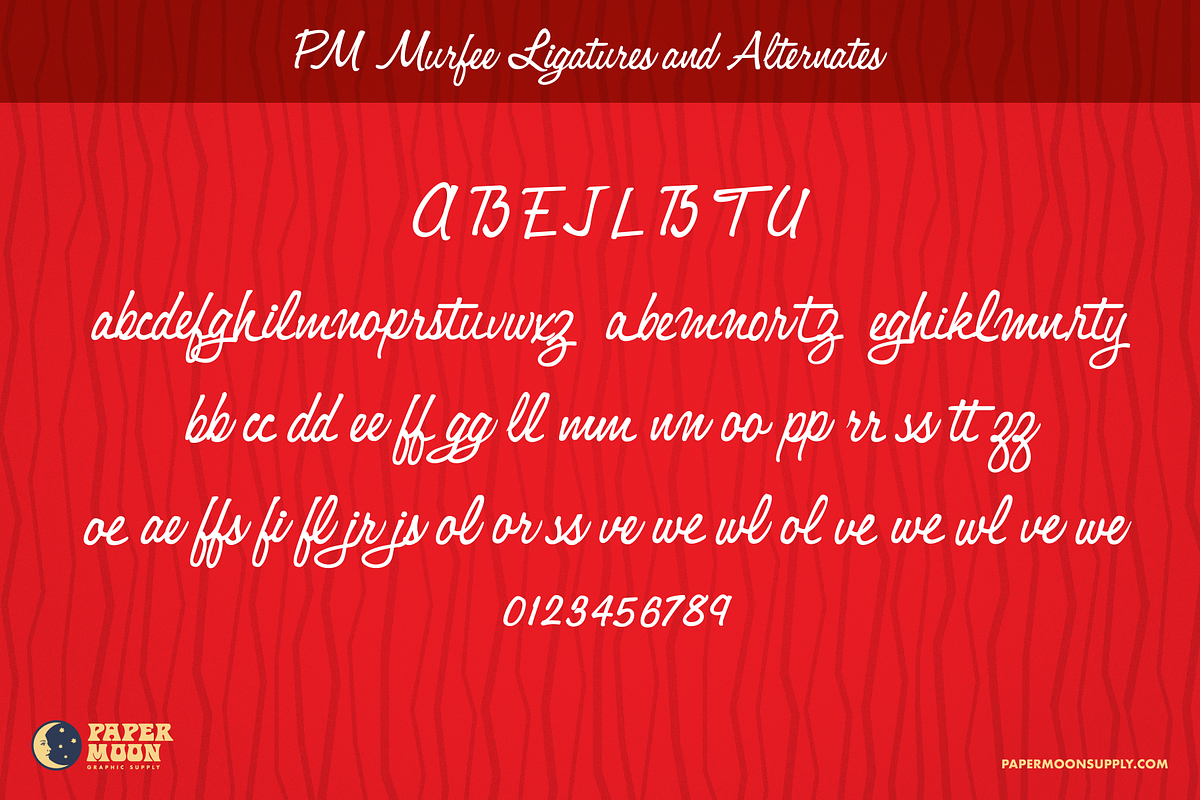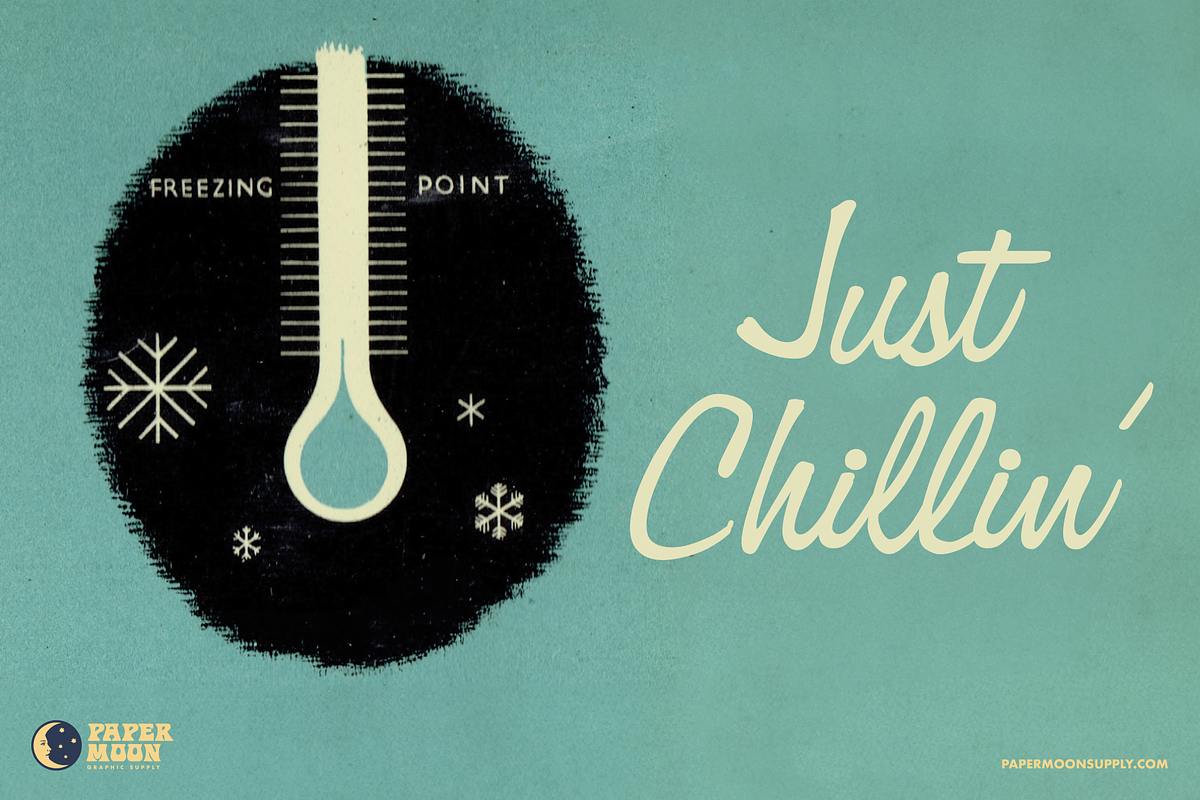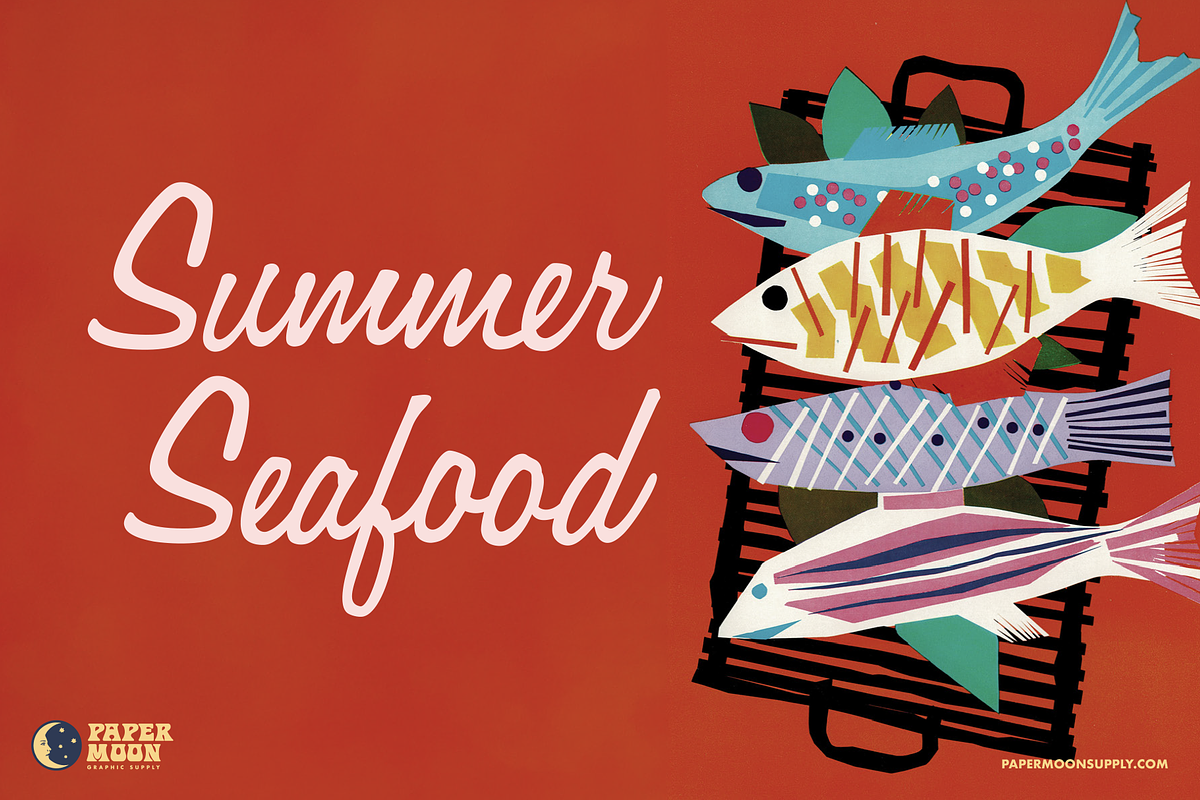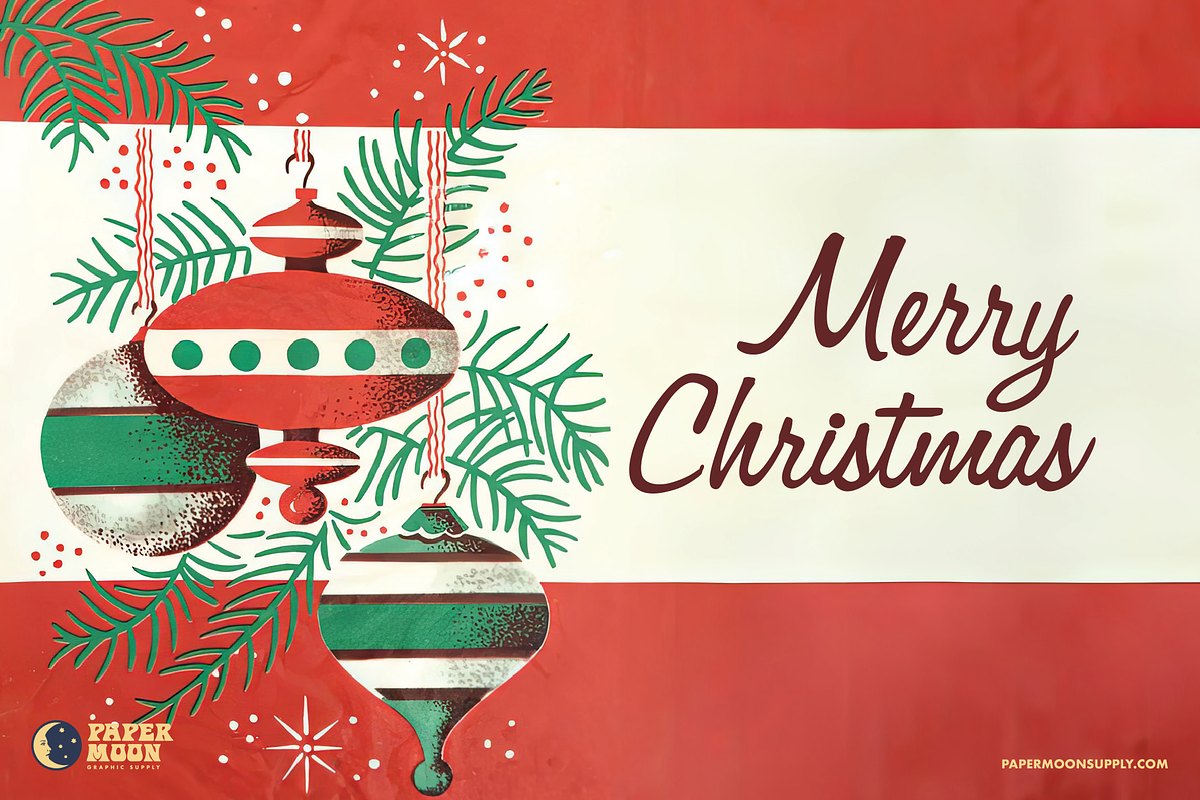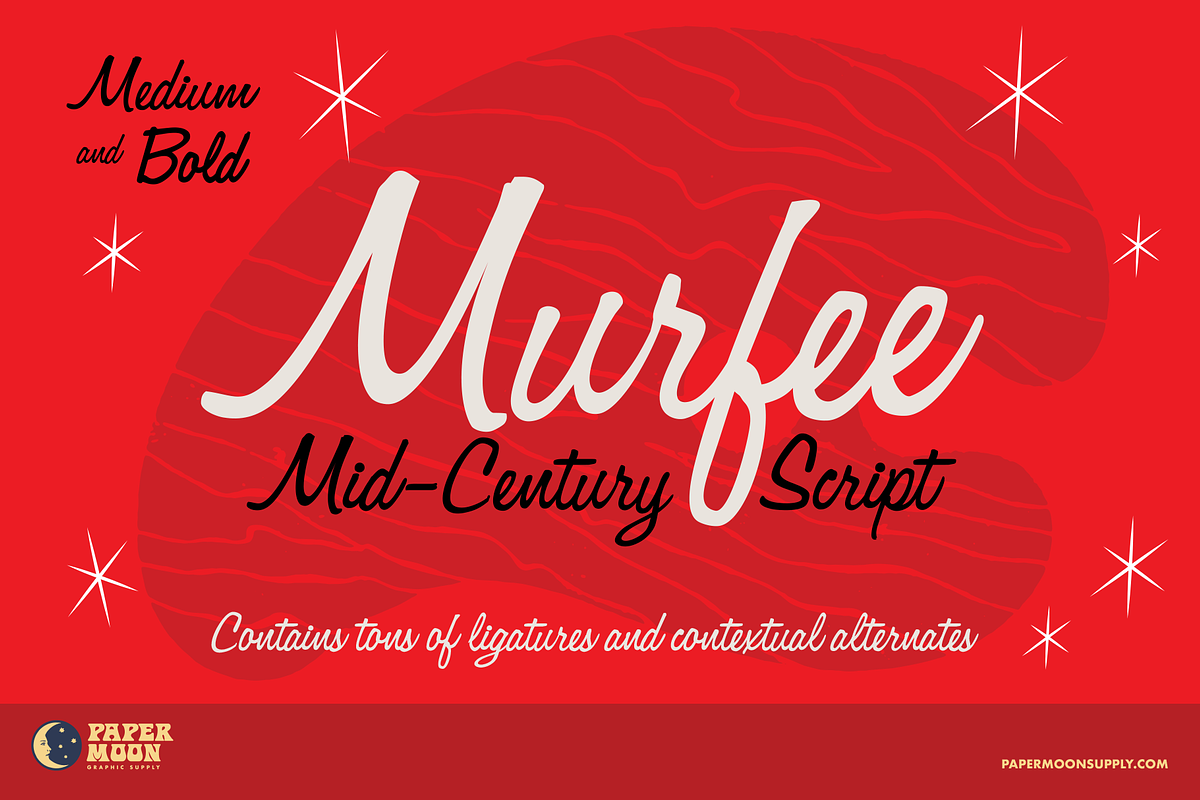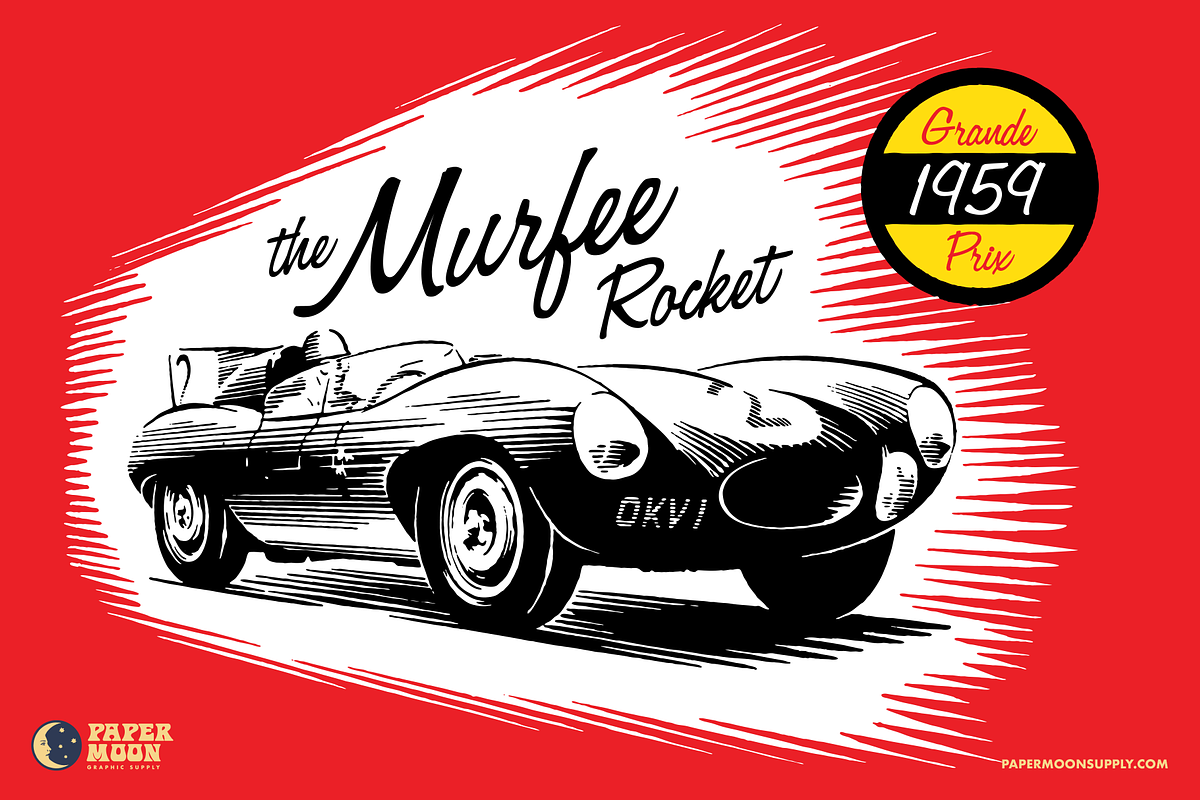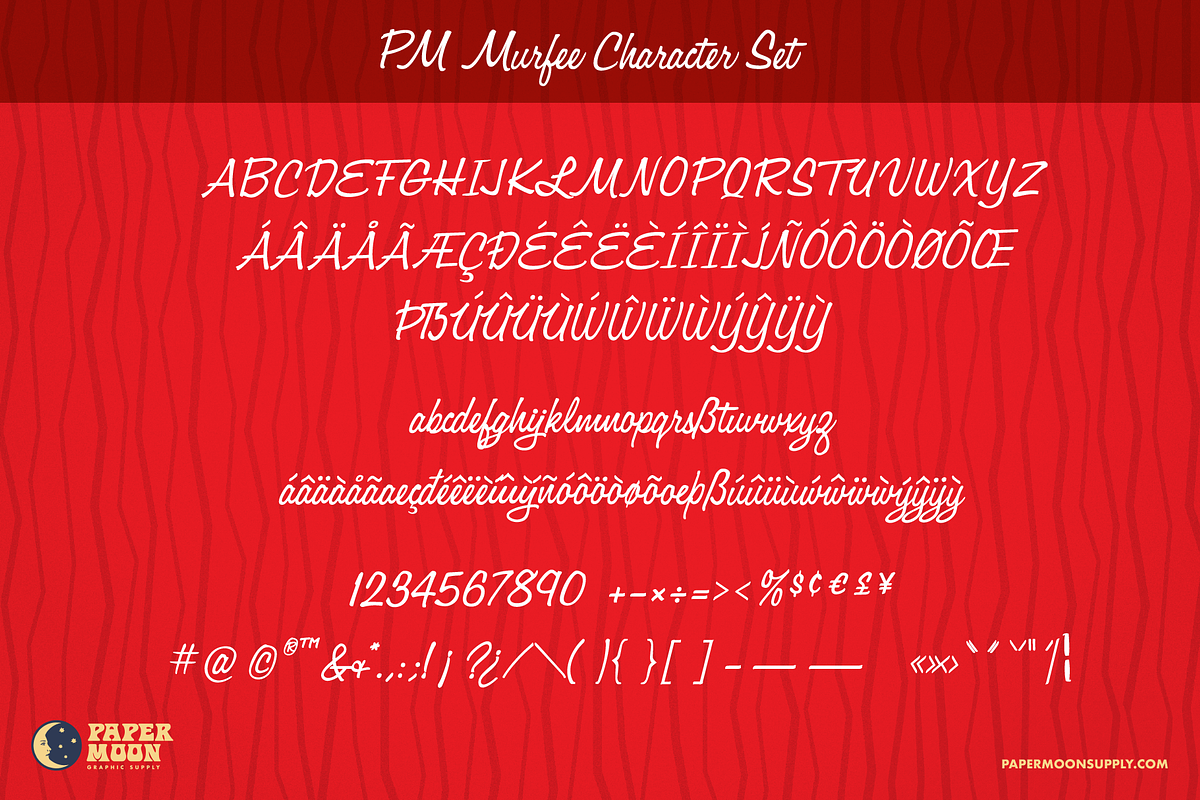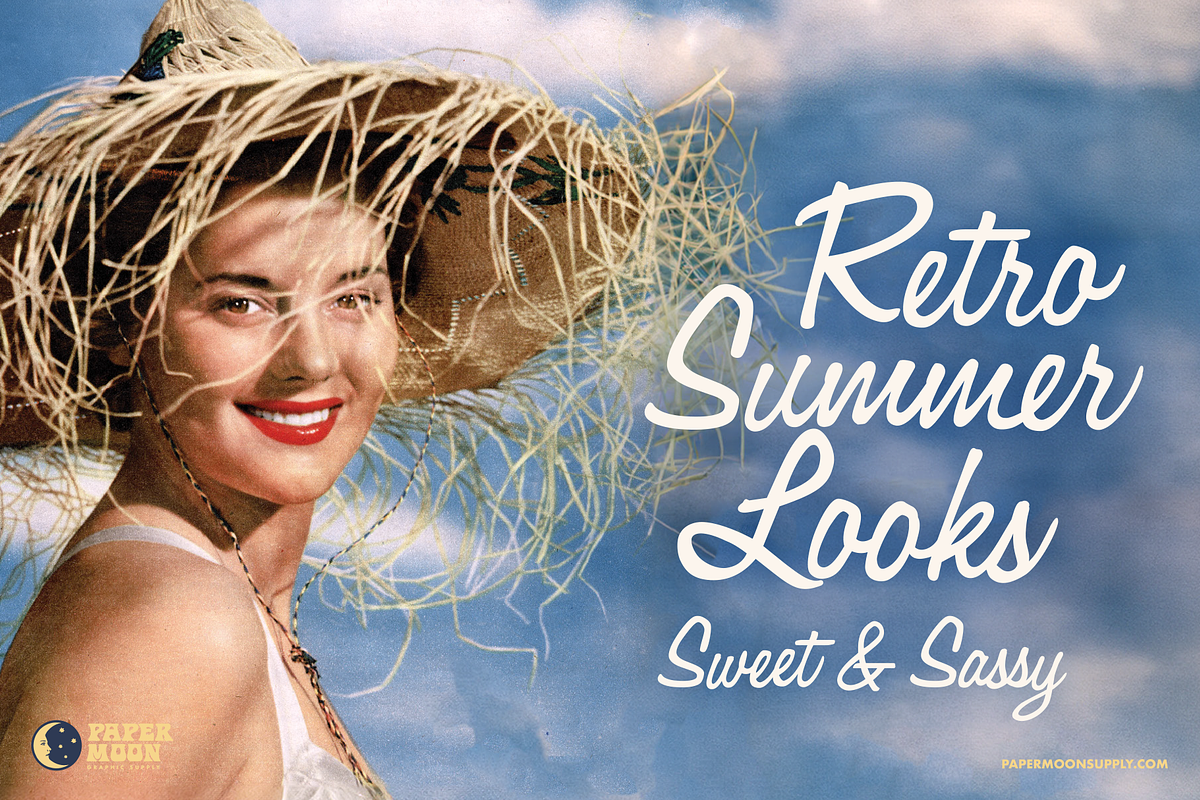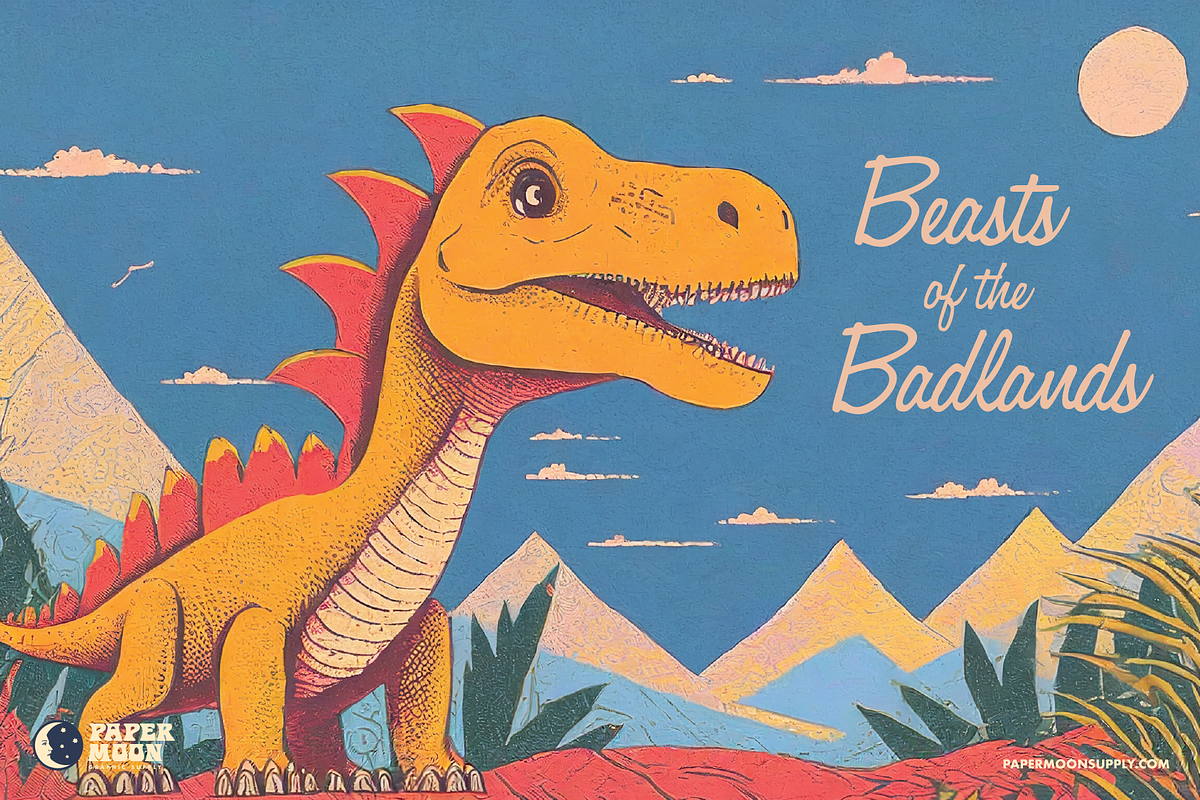
PM Murfee Mid-Century Script Font
PM Murfee is a retro Mid-Century style script font from Paper Moon Graphic Supply
Break out the cocktail shaker and martini glasses! PM Murfee is a Mid-century-inspired typeface that's great for retro and contemporary designs.
- Medium and bold styles
- OpenType stylistic and contextual alternates, plus tons of ligatures
- Complete alphabet, number, and punctuation sets